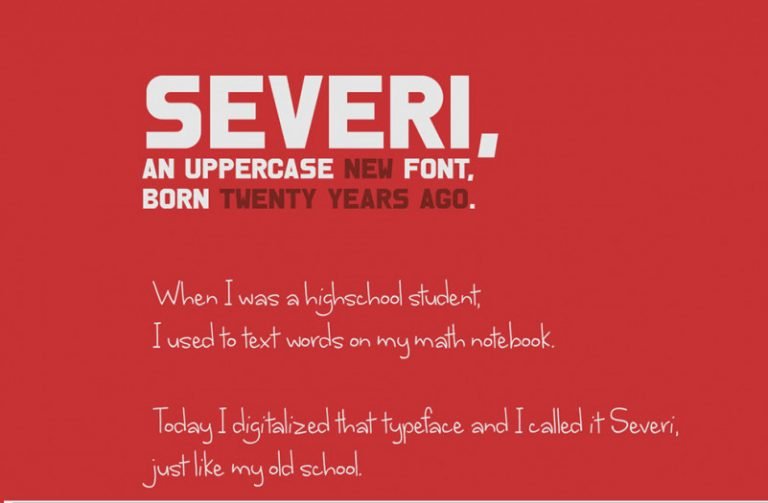
Severi Typeface Font
Thank you for looking Severi Sans Font. This is modern geometric sans serif. Severi is perfect for photography, watermark, social media posts, advertisements, logos & branding, invitation, product designs, label, stationery, product packaging, special events or anything that need powerfull taste.
Severi Typeface